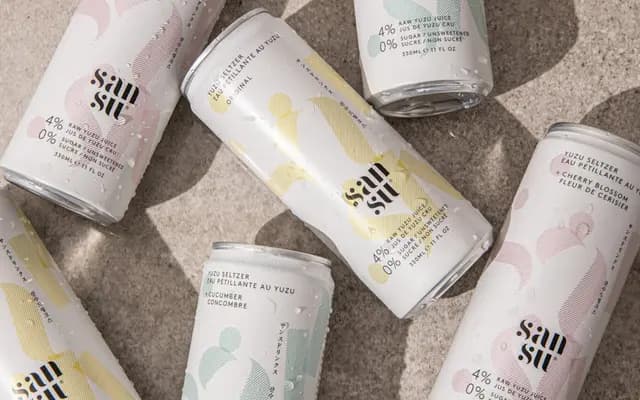
F37 Bella Stencil
F37 Foundry · F37 Foundry
The stencil cut of F37 Bella, taking the family's high-contrast didone character into stencilled fashion and editorial territory.
A stencil cut within the F37 Bella system, drawn across four upright weights from Thin to Bold. Bella Stencil applies clean stencil breaks to the family's high-contrast didone forms, sitting alongside Bella, Bella Display and Bella Text in the wider system. F37 pair it with F37 Bella, F37 Blanka and F37 Zagma, supporting fashion, fragrance, hospitality, cultural and event branding where you want glamour with a slightly mechanical edge.
F37 frame Bella Stencil as the stencil cut within the Bella system, applying stencil breaks to the family's high-contrast didone forms.